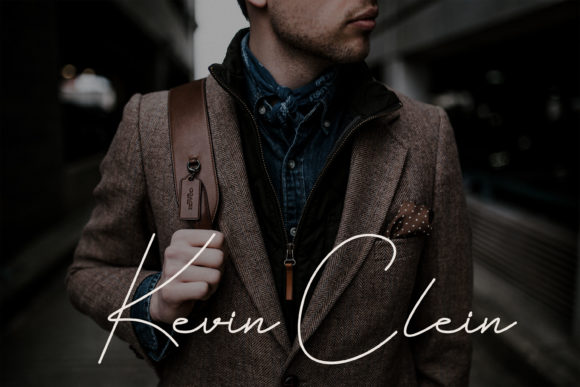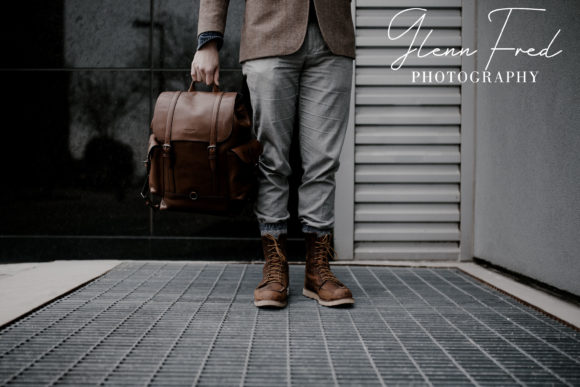
About Samartha Font
Samartha is a handwritten font that boasts a unique signature style, making it an ideal choice for a variety of design applications. This font shines in logo branding, product designs, quotes, posters, displays, websites, invitation cards, greeting cards, headlines, magazines, and various other design projects that benefit from its outstanding and distinctive flair.
The unique signature style of Samartha adds a personal touch to your text, creating a visual identity that stands out. Whether you’re crafting a logo, designing a product, or working on promotional materials, this font imparts a sense of individuality and character.
The versatility of Samartha is evident in its suitability for a wide range of design contexts. From digital platforms like websites to print materials such as posters and magazines, this font adapts seamlessly, ensuring a consistent and eye-catching appearance across various mediums.
Samartha’s handwritten charm extends to its ability to convey a sense of authenticity and warmth. It brings a human touch to your designs, making it particularly effective for projects that require a personal and approachable feel.
In summary, Samartha is not just a font; it’s a handwritten typeface with a unique signature style that adds character and distinction to your designs. Let it be the go-to choice for your logo branding, product designs, quotes, and more, infusing each project with an outstanding and personalized aesthetic that leaves a lasting impression.